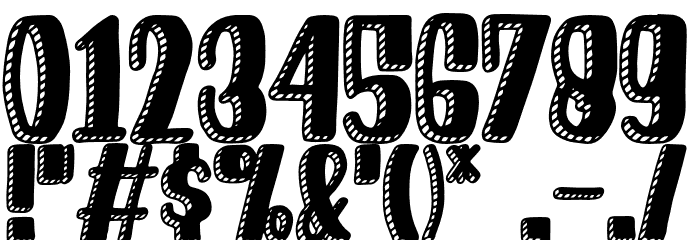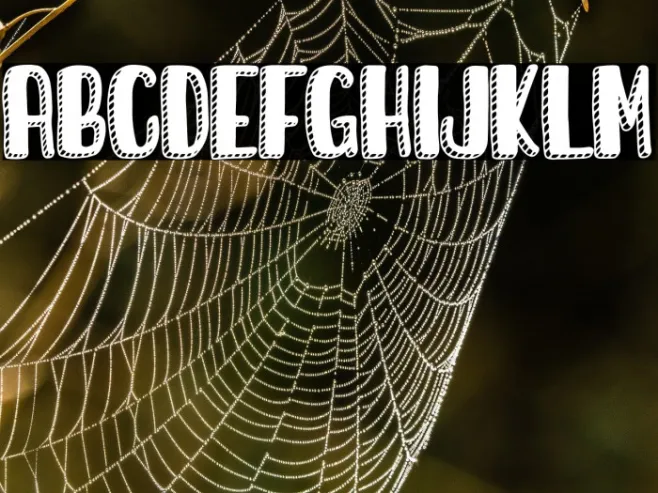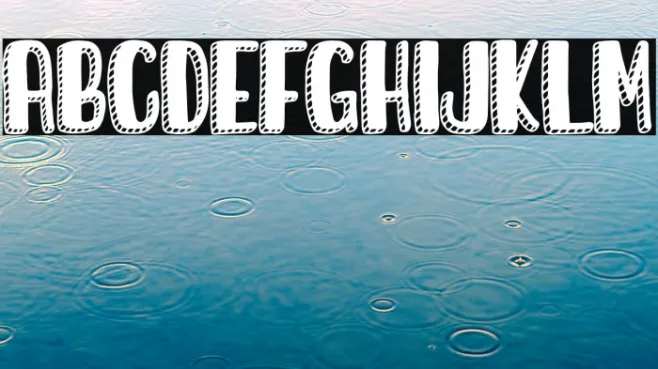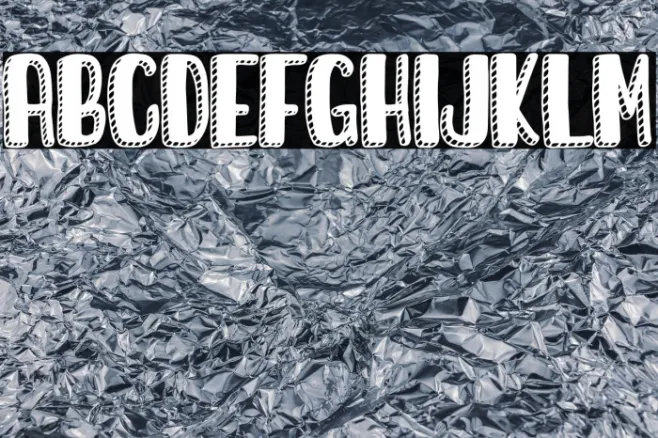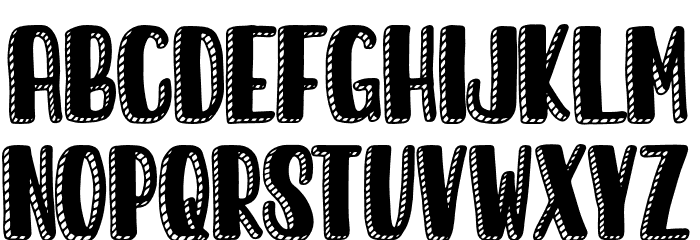
SundayMorning Font
This font features a bold, playful design with a hand-drawn aesthetic. Each character is filled with a solid color and outlined with a dashed line, giving it a textured, three-dimensional appearance. The letters are rounded and slightly irregular, adding to the casual and whimsical feel. The numbers and special characters maintain the same style, ensuring consistency across all elements. This font is ideal for projects that require a fun and informal touch, such as children's books, party invitations, or playful branding.
A bold, playful font with a hand-drawn, textured style.
• Proposed Projects: Ideal for children's books, party invitations, playful branding, and casual designs.
• Category: Decorative/Display
• Bold: Yes
• Italic: No
• Weight: Bold
• Width: Normal
• Character Spacing: Normal
• Contrast: Low
• Overall Style: Playful, Hand-drawn
• Use Case: Headlines, Logos, Invitations